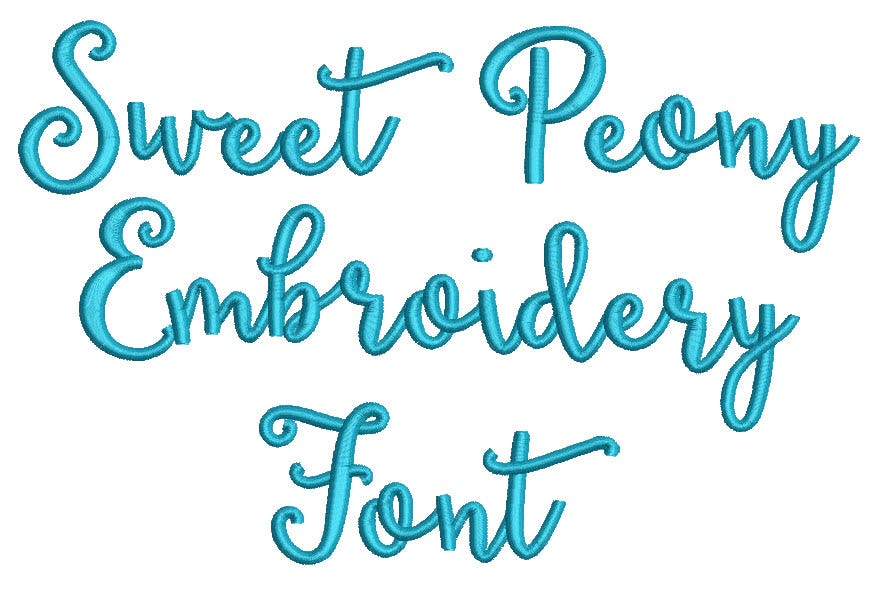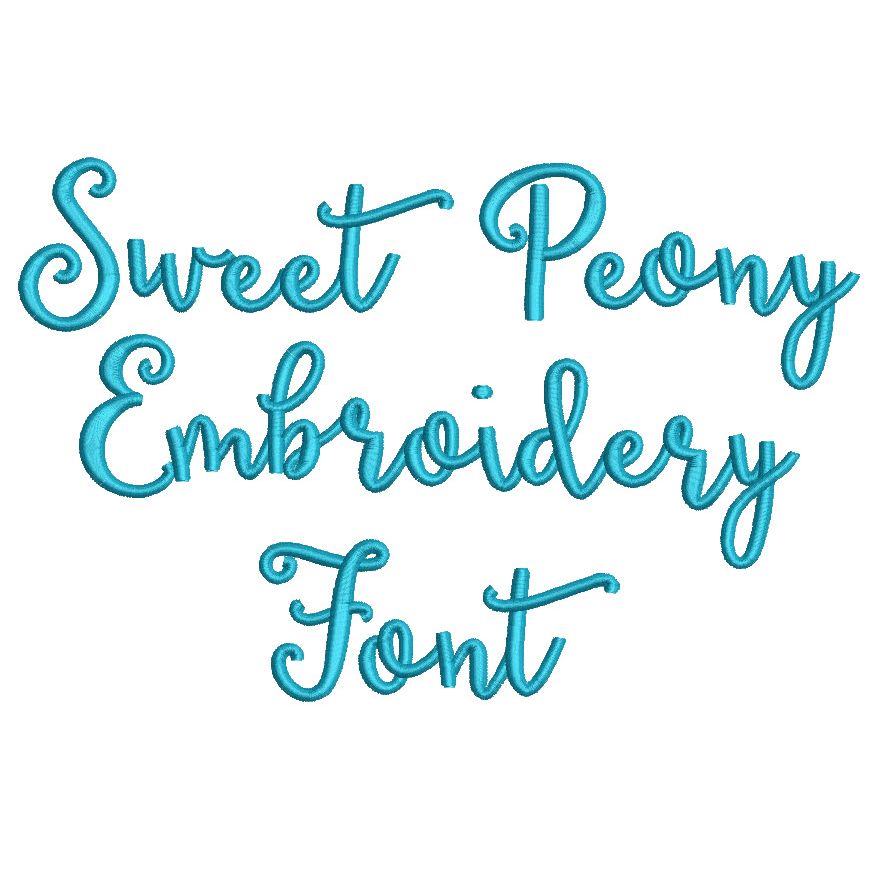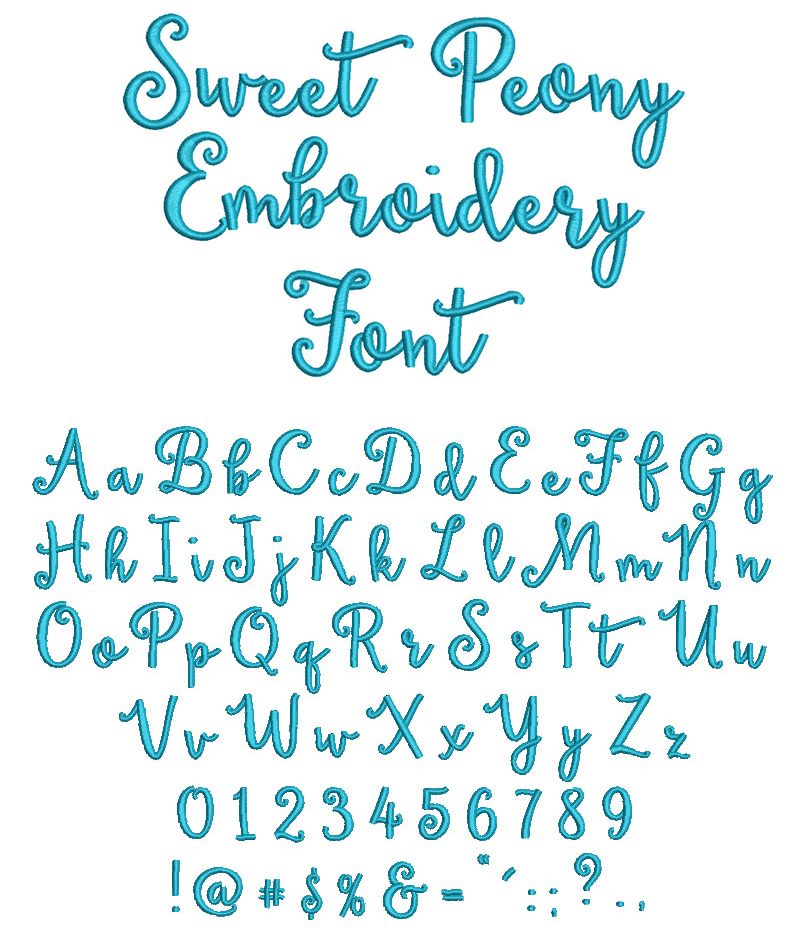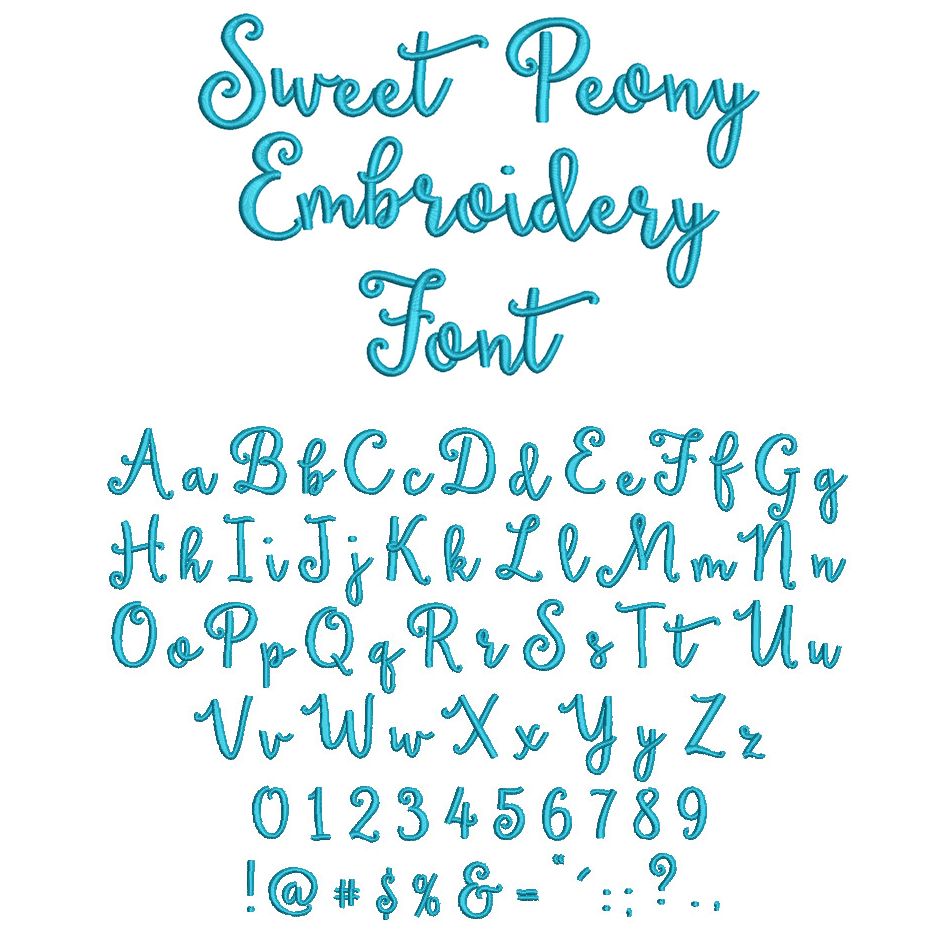
Sweet Peony Satin Stitch Embroidery Font
Beautiful script font! All of our font alphabets are 100% manually digitized to bring you maximum stitch quality.